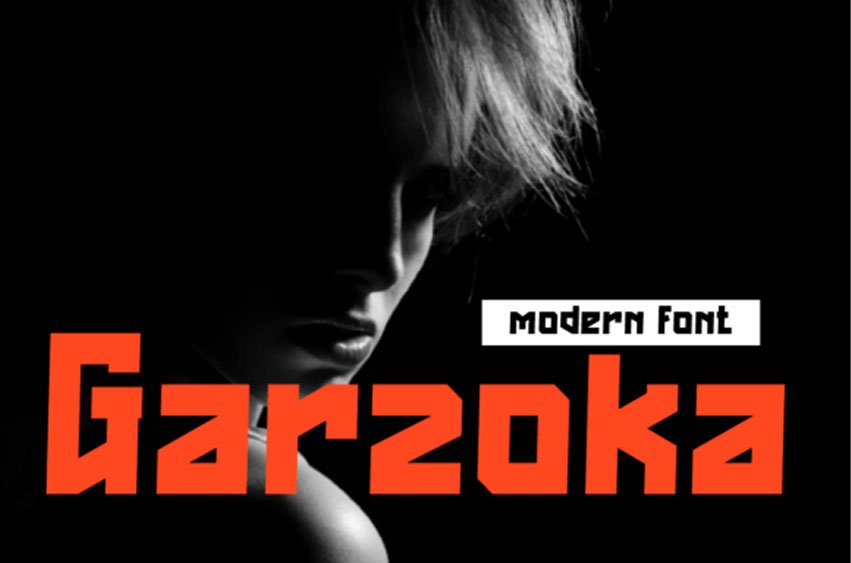
Garzoka Font is a striking modern display font with bold geometric edges and a futuristic vibe. Perfect for headlines, posters, branding, and editorial design, this font commands attention and adds a dynamic edge to any project.
Its contemporary style is ideal for both digital and print formats.